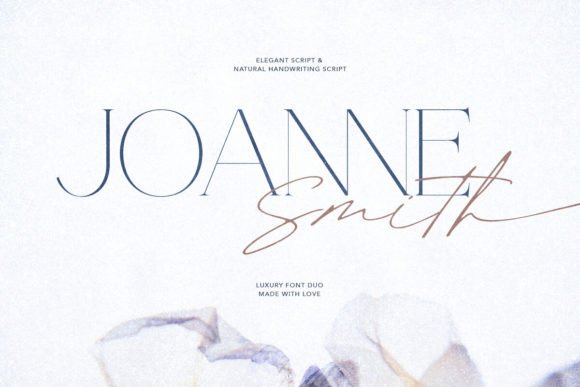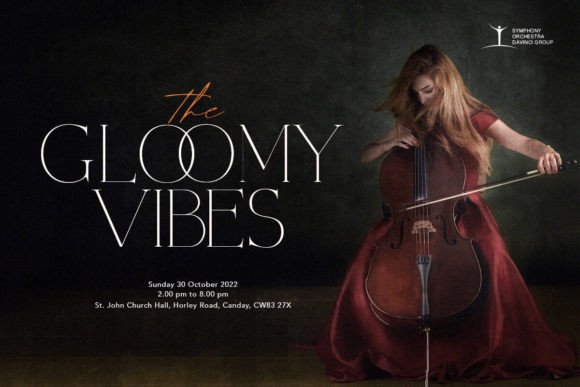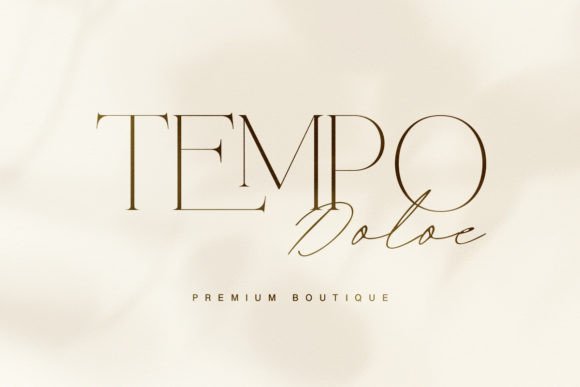
Joanne Smith Font
About the Joanne Smith Font
The wait is over! The incredible Joanne Smith Font is now available for your design toolkit. Joanne Smith is a font duo that contains elegant serif and natural handwriting script. You can use this fonts for any purpose, such as branding, logo, and suitable for wedding invitations. Don’t need to find the perfect match of the fonts for your new project, you can get two in this one pack. This font is versatile and stunning for timeless use.
The Joanne Smith serif is ideally suited for headlines, logos, and short blocks of text in branding materials and wedding stationery. Its elegant nature makes it perfect for projects requiring a touch of sophistication and timeless appeal. However, the script, while beautiful for accents, is less suitable for large amounts of body copy due to its lower readability. Avoid using it in UI or for long paragraphs.
Pairing the serif with a clean sans-serif like Lato or Open Sans creates a balanced and modern feel, while a pairing with a geometric sans-serif offers a more contemporary, high-end aesthetic. For a warmer, more traditional feel, consider pairing the serif with a classic serif like Garamond or a slightly more playful script font.
The overall personality of the Joanne Smith duo is sophisticated and elegant, with a touch of romanticism conveyed through the script. It’s a strong choice for brands that wish to project a refined and timeless image.
Joanne Smith Font Usage Examples
Joanne Smith Font Example